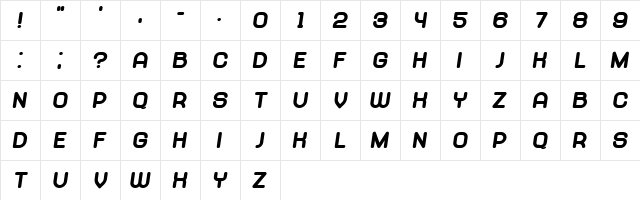
Abandoned Ultra Italic
Design Context for Abandoned Typeface
Abandoned offers clean, dependable letterforms without strong stylistic allegiance, making it a practical choice for designers who need flexibility. The dynamic lean of this cut emphasises speed and emphasis in any layout.
Pro Tip: Try Abandoned for annotation and caption copy alongside an upright companion — the contrast in angle creates a dynamic but ordered typographic system.